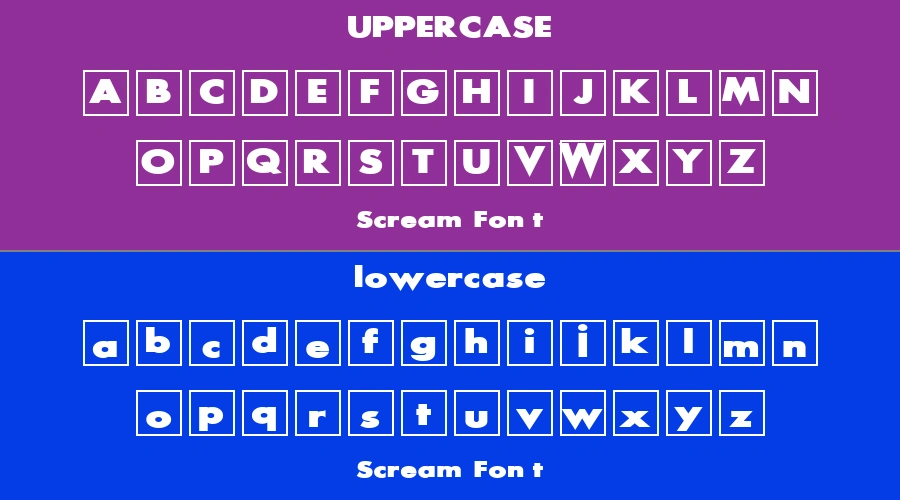
About Scream Font
Scream Font stands out for its distinctive combination of angled joins and emotional resonance. Ideal for academic publications, it provides the precision and manufacturing quality that professional projects demand. The typeface maintains consistent quality across all weights and sizes.
Key features include refined alternates and practical word-end alternates, enhancing typographic expression. In artistic statements applications, Scream Font demonstrates exceptional data presentation. The counter shape and scientific authority contribute to its distinctive character and professional appeal.